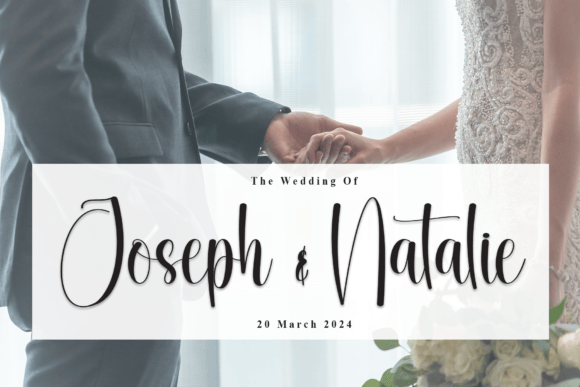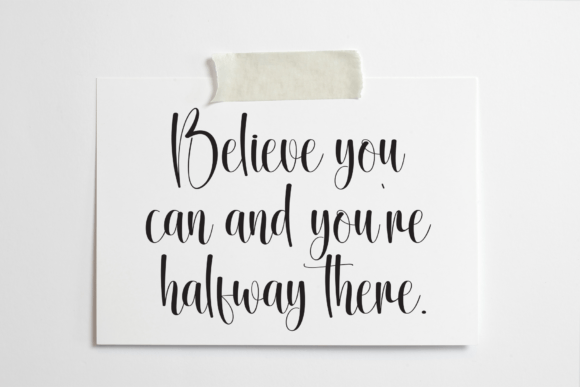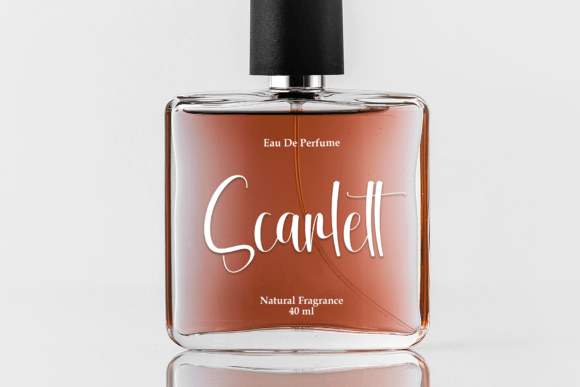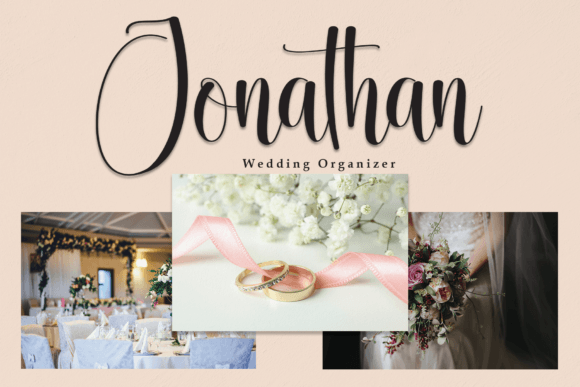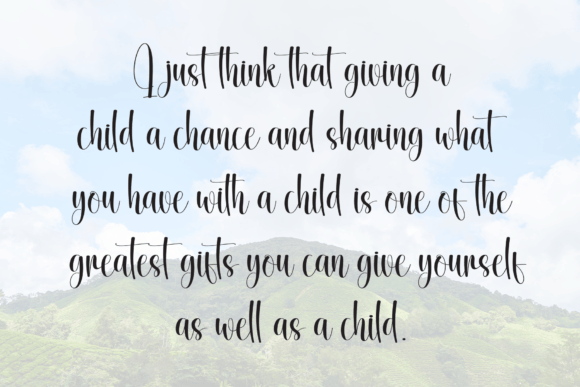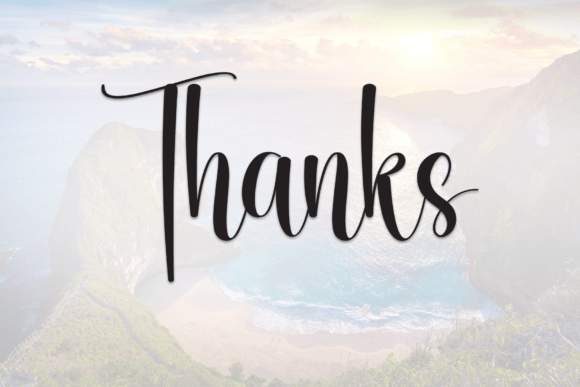
Introducing Beautiful Font: Elevate Your Designs with Elegance
Are you a designer or crafter looking for a font that exudes elegance and sophistication? Look no further than Beautiful Font, a stylish and incredibly elegant script font that can elevate your designs to new heights. In this article, we’ll explore the features and benefits of Beautiful Font, and how it can be used to create stunning designs for various applications.
What is Beautiful Font?
Beautiful Font is a script font that boasts a high level of elegance and refinement. Its flowing lines and cursive strokes give it a handwritten feel that’s perfect for designs that require a personal touch. Whether you’re creating wedding invitations, thank you cards, quotes, greeting cards, logos, or business cards, Beautiful Font is the perfect choice.
Key Features of Beautiful Font
• Elegant and Refined: Beautiful Font features elegant and refined lines that give it a sophisticated look.
• Script Style: The font has a script style that’s perfect for designs that require a handwritten touch.
• Versatile: Beautiful Font can be used for a wide range of applications, from wedding invitations to business cards.
• Easy to Read: Despite its elegant style, Beautiful Font is easy to read, making it perfect for designs that require a clear and concise message.
Uses of Beautiful Font
Beautiful Font is a versatile font that can be used for various design applications. Here are some of the most popular uses of this stunning font:
• Wedding Invitations: Beautiful Font is perfect for wedding invitations, adding a touch of elegance and sophistication to your designs.
• Thank You Cards: The font is also great for thank you cards, allowing you to express your gratitude in a stylish and elegant way.
• Quotes: Beautiful Font is ideal for quotes, adding a touch of elegance and refinement to your designs.
• Greeting Cards: The font can be used for various types of greeting cards, from birthday cards to Christmas cards.
• Logos: Beautiful Font can be used to create stunning logos that exude elegance and sophistication.
• Business Cards: The font is also perfect for business cards, allowing you to create a professional and elegant design.
Benefits of Using Beautiful Font
Using Beautiful Font in your designs offers several benefits, including:
• Unique and Elegant Designs: Beautiful Font allows you to create unique and elegant designs that stand out from the crowd.
• Time-Saving: The font is easy to use and can save you time when creating designs.
• Professional Look: Beautiful Font gives your designs a professional look that’s perfect for businesses and individuals.
• Customizable: The font can be customized to fit your design needs, allowing you to create a unique look.
Tips for Using Beautiful Font
Here are some tips for using Beautiful Font in your designs:
• Use it Sparingly: Use Beautiful Font sparingly to avoid overwhelming your design.
• Pair it with Other Fonts: Pair Beautiful Font with other fonts to create a unique and interesting design.
• Experiment with Colors: Experiment with different colors to find the perfect match for your design.
• Pay Attention to Spacing: Pay attention to spacing to ensure that your design looks elegant and refined.
Beautiful Font is a stunning script font that’s perfect for designers and crafters looking to add a touch of elegance and sophistication to their designs. With its elegant lines, script style, and versatility, Beautiful Font is ideal for various design applications, from wedding invitations to business cards. By using Beautiful Font, you can create unique and elegant designs that stand out from the crowd.